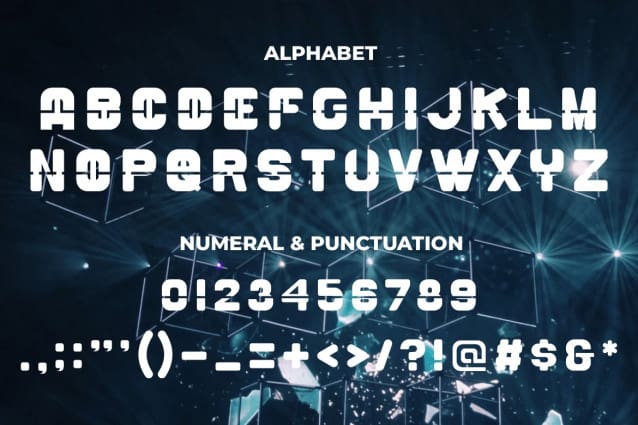
Kangxi Display Font
Kangxi Display Font – Modern Font is a bold and authentic display font. The font is suitable for any branding project like logo, t-shirt printing, esports, etc. outstanding in a wide range of contexts.